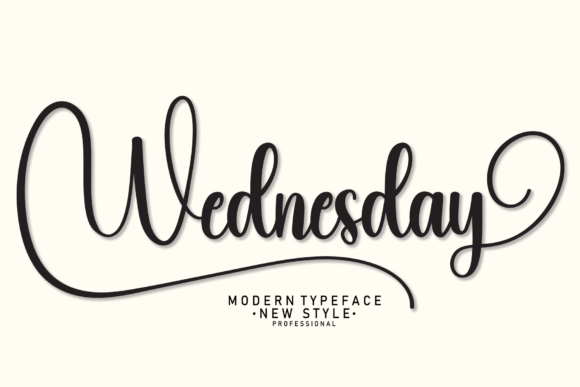
Looking for the best font for print design? Look no further than Wednesday Font! Created by andikastudio, Wednesday is a casual and neat handwritten font that is perfect for adding a touch of elegance to your next design project.
Whether you're creating a wedding invitation, a brand logo, or a marketing brochure, Wednesday Font is versatile and adaptable enough to suit any style. With its trendy and stylish appearance, this font will capture the attention of your audience and make your message stand out.
What sets Wednesday Font apart is its unique combination of casual and neat handwriting. This font is perfect for those who want to add a personal touch to their designs without sacrificing professionalism. Its effortless flow and natural curves create a welcoming and approachable feel that will instantly connect with your audience.
Don't settle for boring fonts that blend in with the crowd. Wednesday Font is the perfect choice for those who want to make a statement and leave a lasting impression. Its emotional appeal and creative flair will help you to express your ideas and emotions in a way that is both beautiful and impactful.